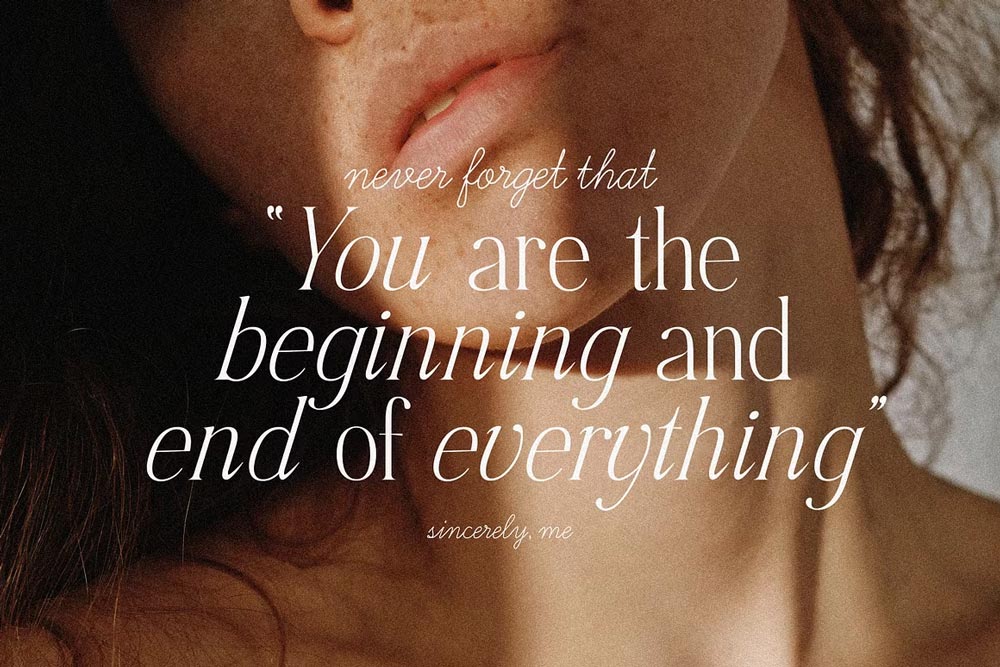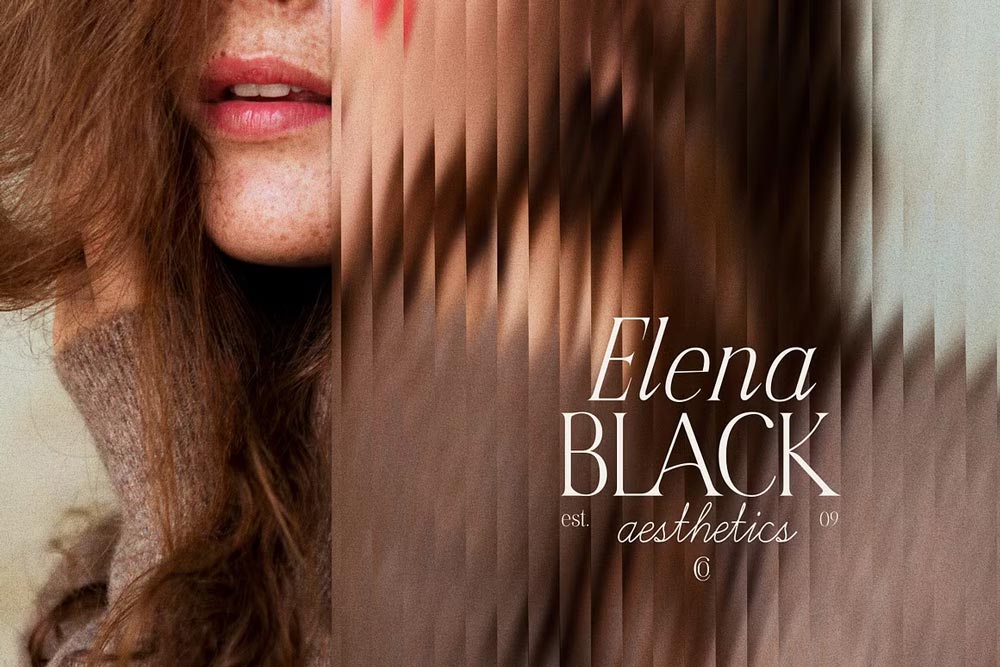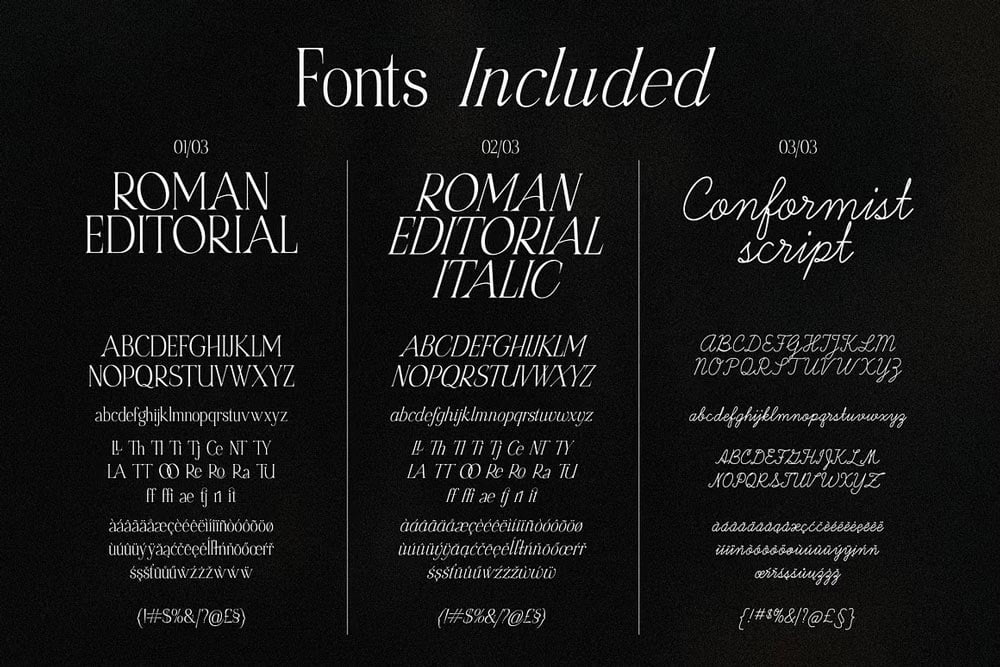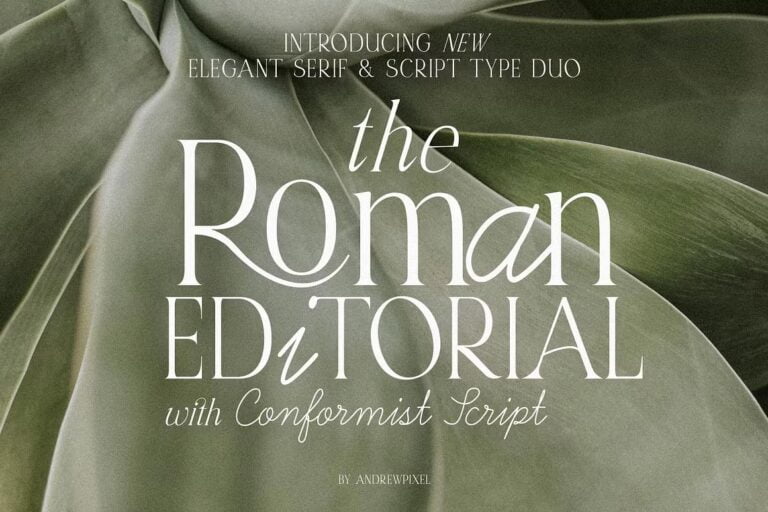
Introducing Roman Editorial & Conformist Script Duo.
A harmonious pairing of classic and contemporary typography that brings together the best of both worlds. The Roman Editorial font exudes timeless elegance with its refined serif characters, perfect for commanding attention in headlines, editorials, and sophisticated print layouts. Its dignified style makes it ideal for conveying a sense of modern elegance with a sense of tradition.
In contrast, the Conformist Script font offers a modern twist with its fluid, handwritten aesthetic. This versatile script adds a personal touch to your designs, making it perfect for invitations, branding, and any project that requires a hint of creative flair.
The font comes with a set of alternates and ligatures to make your design look one of a kind.